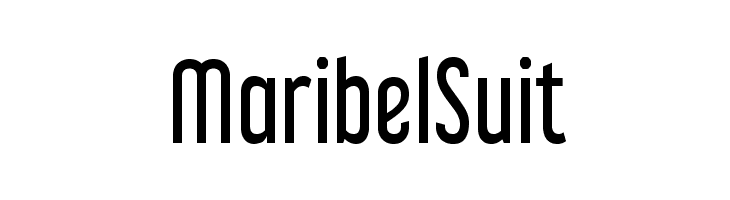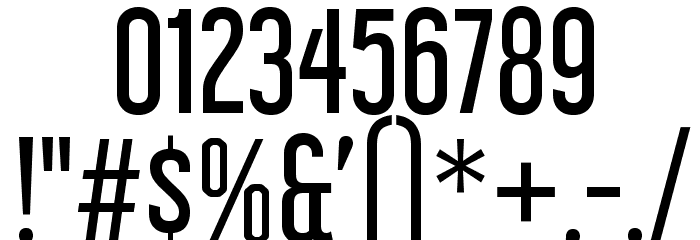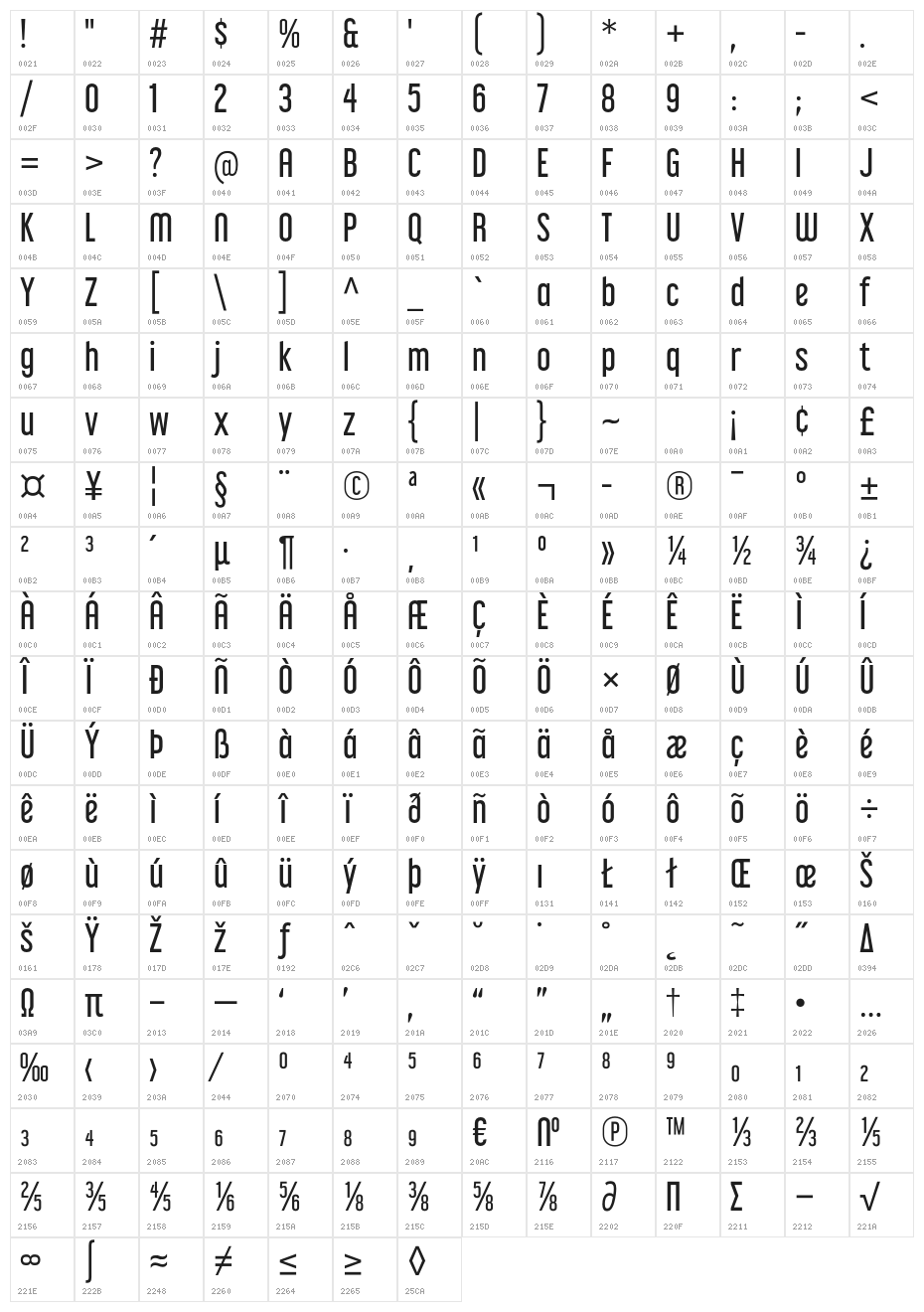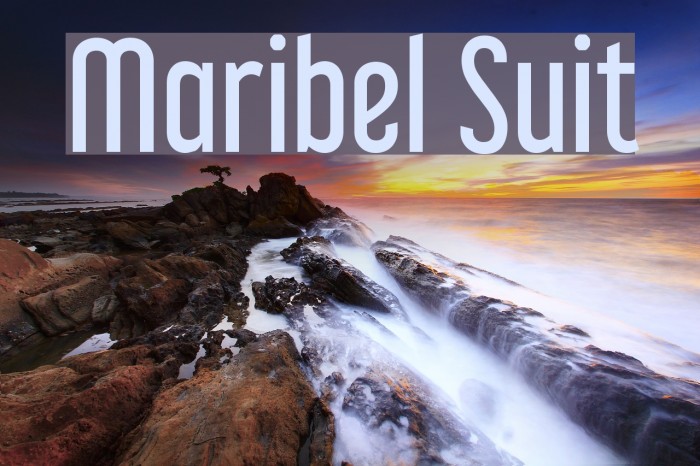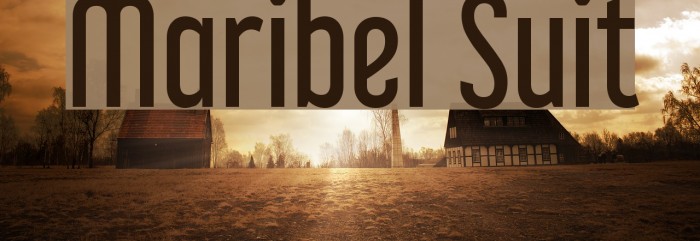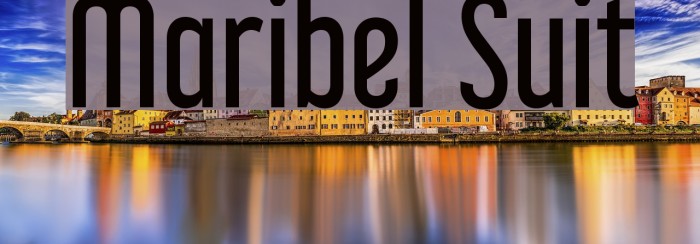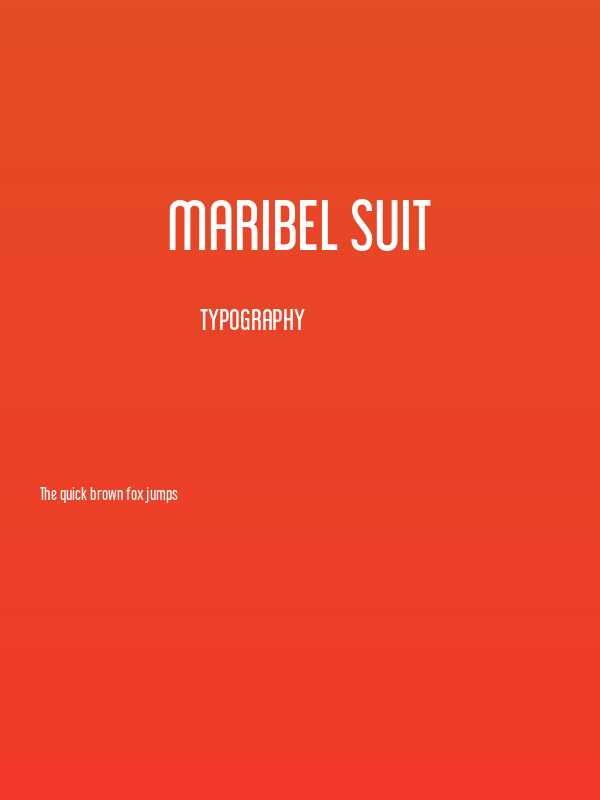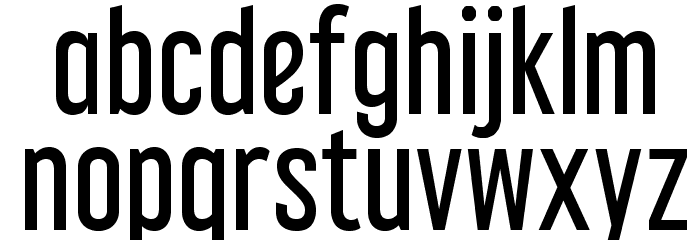
Maribel Suit Font
Maribel Suit Description
This font features a modern and clean sans-serif style with a geometric structure. The characters are tall and narrow, giving it a condensed appearance. The strokes are consistent in weight, providing a uniform look across all characters. The uppercase letters are slightly taller than the lowercase, maintaining a balanced proportion. The numerals are clear and easily distinguishable, while the special characters are designed to complement the overall aesthetic. This font is versatile and can be used in various design contexts.
| Use Case | Headlines, Logos, Editorial design |
| Proposed Projects | Ideal for branding, advertising, and editorial design projects where a modern and clean look is desired. |